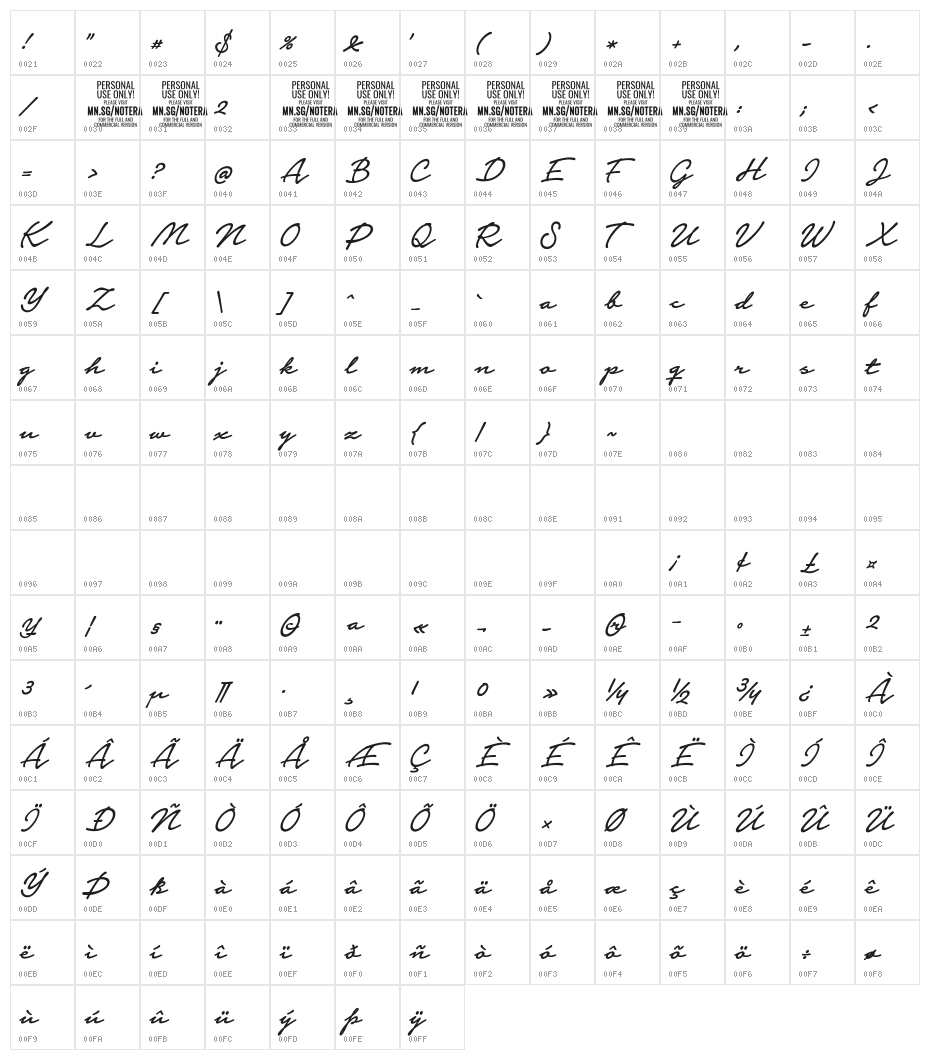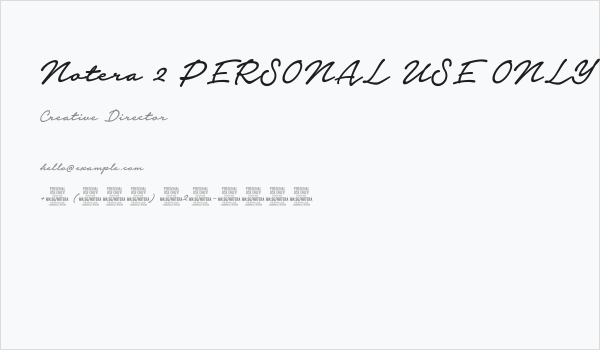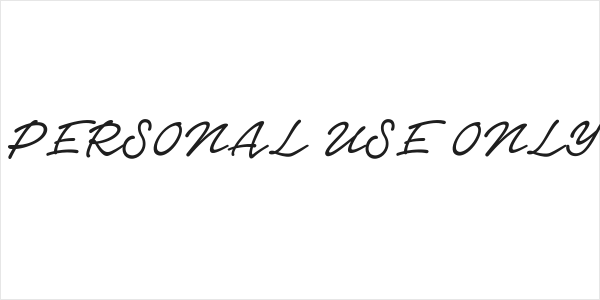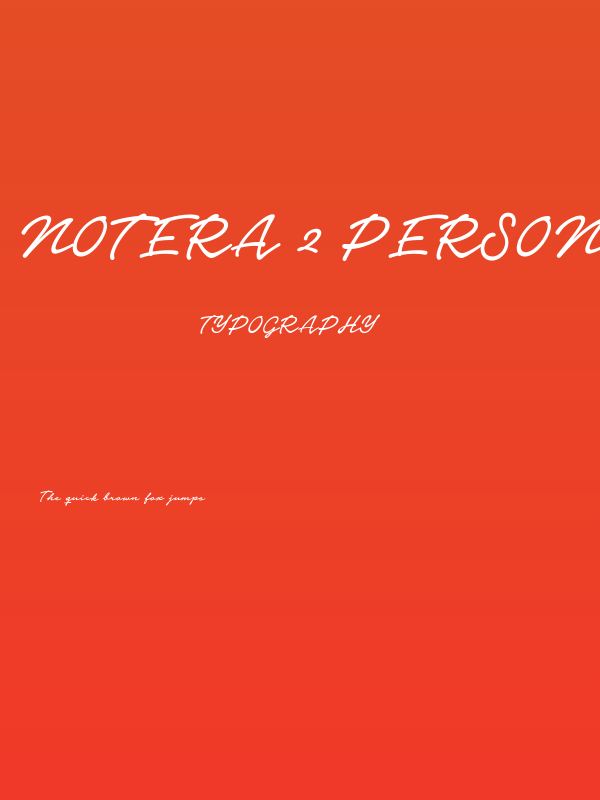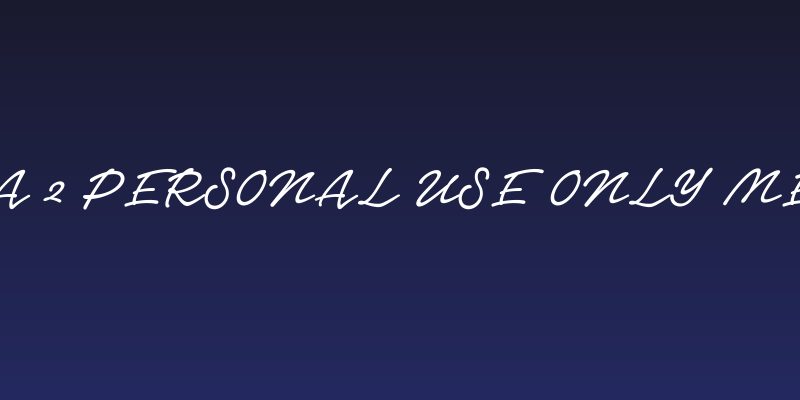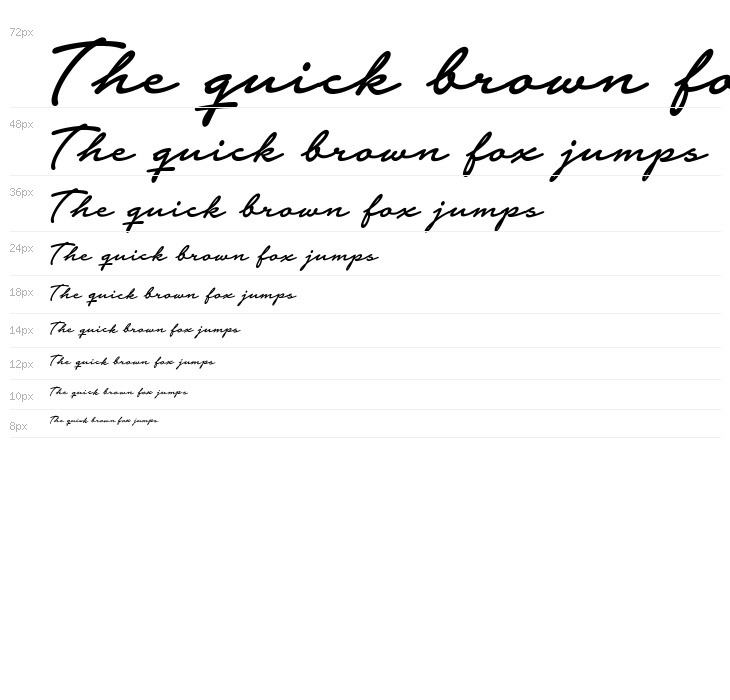
Notera 2 PERSONAL USE ONLY Medium Font
Notera 2 PERSONAL USE ONLY Medium Description
This font features a flowing, cursive style with elegant, connected letters that mimic natural handwriting. The uppercase letters are slightly more ornate, with a consistent slant that adds a sense of movement and grace. The lowercase letters maintain a smooth, continuous line, enhancing readability while preserving the script's artistic flair. Numbers and special characters are designed to complement the alphabet, maintaining the same fluidity and style. The overall appearance is sophisticated yet approachable, making it suitable for various creative applications.
| Proposed Projects | Ideal for wedding invitations, greeting cards, personal branding, and artistic projects that require a touch of elegance and personal flair. |